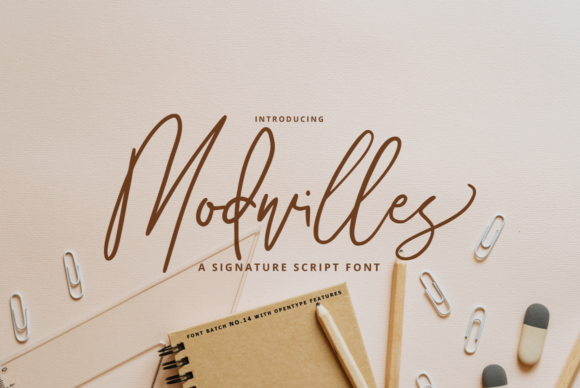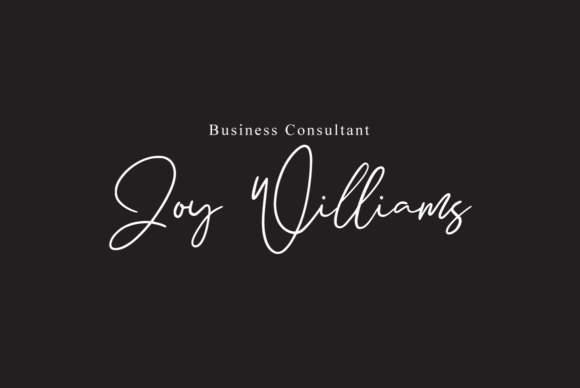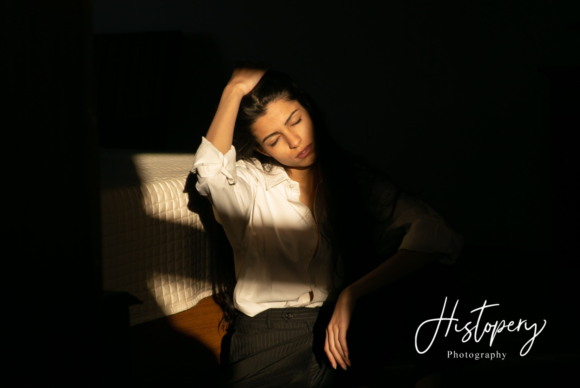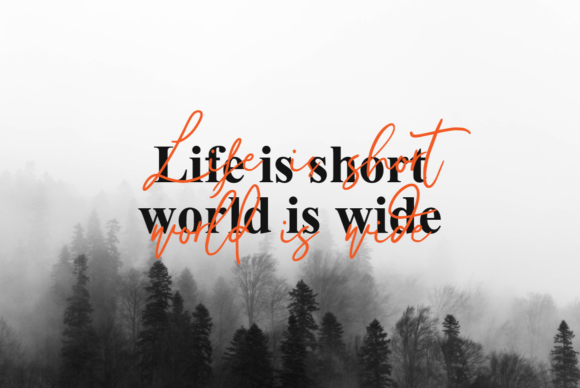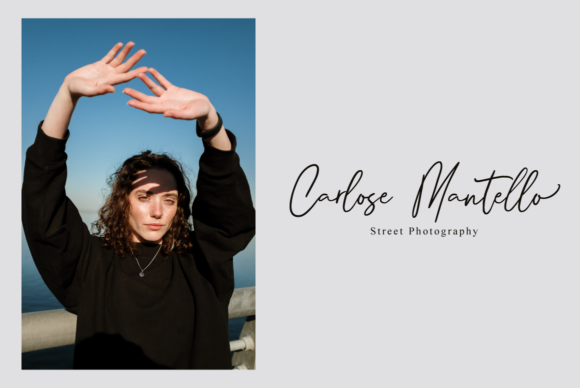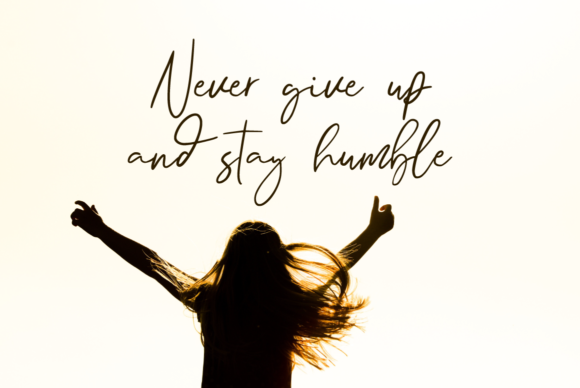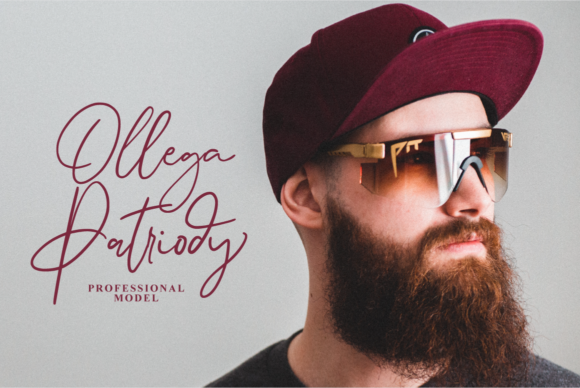
Modwilles Font
About Modwilles Font
Modwilles is a thin and fashionable script font. It has a classy, elegant and modern look that can be used for logos, branding, invitations, stationery, wedding designs, social media posts, and much more!